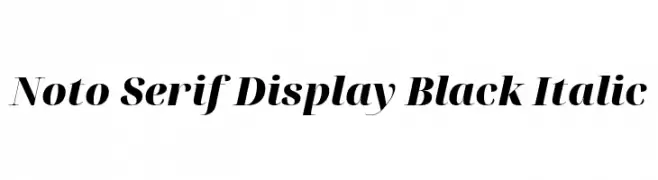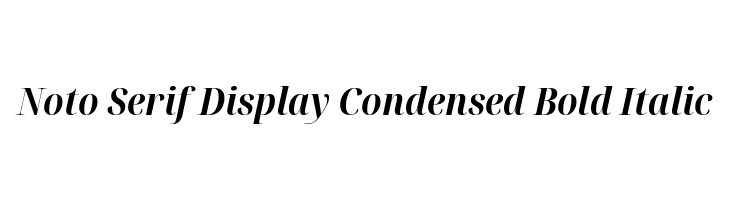
A bold, high-contrast serif font with a modern yet classic style.
A bold, italic serif font with a classic and elegant style.
A bold, high-contrast serif font with a classic and elegant style.
Elegant serif font with bold, italicized style and balanced contrast.
A modern, condensed serif font with elegant, sharp serifs.
A bold, high-contrast serif font with a condensed style, perfect for impactful designs.
Elegant, condensed serif font with bold, italic style and high contrast.
A bold, condensed serif typeface with high contrast and elegant style.
A bold, condensed serif font with an elegant italic slant.
A serif, condensed, extra bold typeface with high contrast, ideal for impactful headlines.